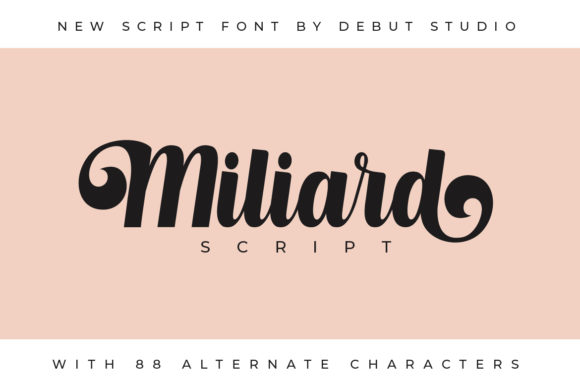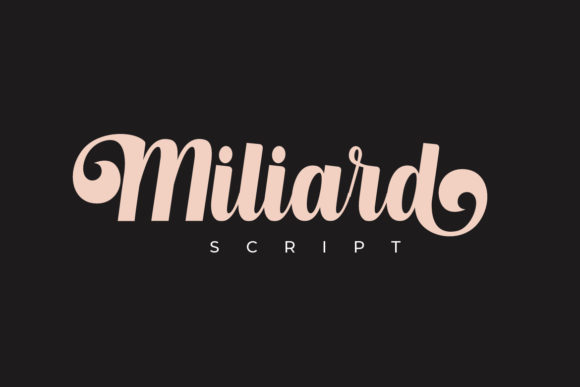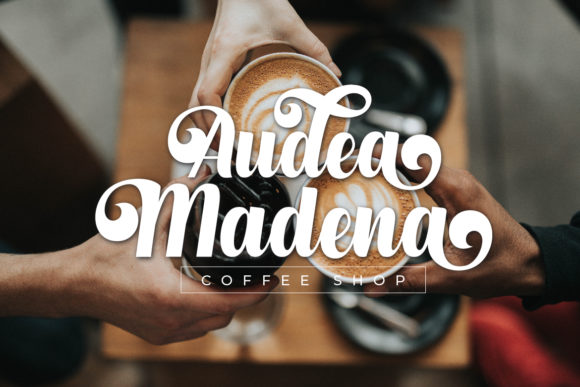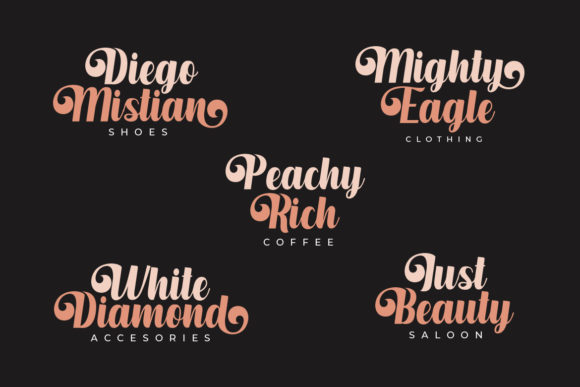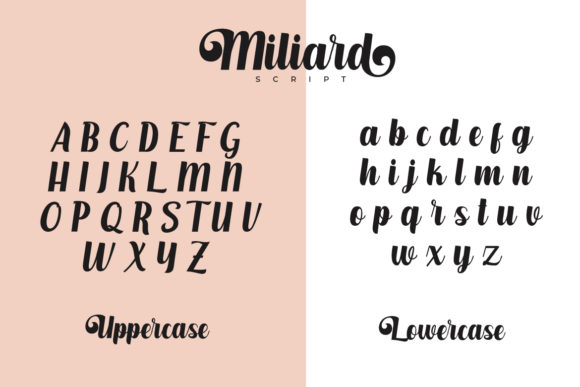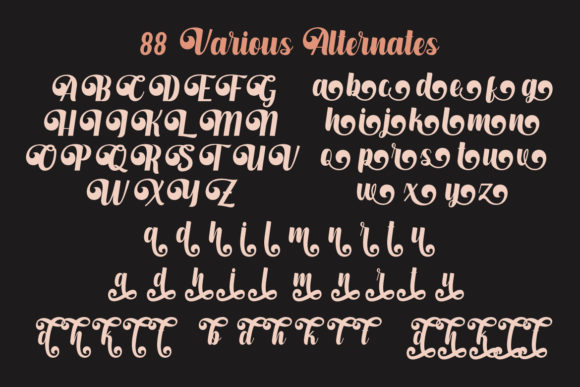
Milliard Script Font
About Milliard Script Font
Miliard Script is a beautiful flowing script font with a unique style. Use it for any design project that requires a personalized appearance!